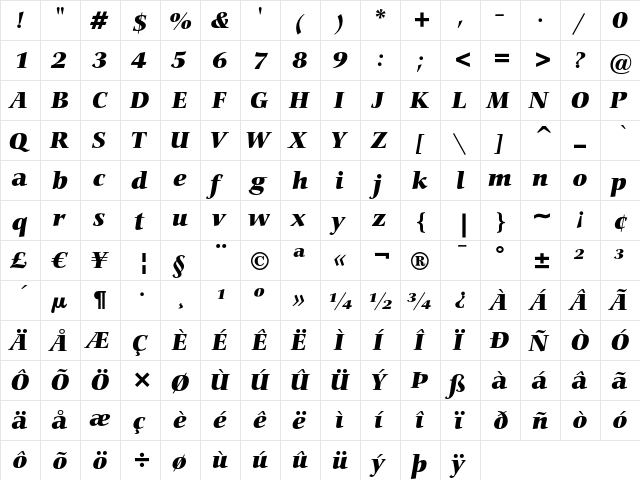
Bitstream Carmina Black Italic
Design Context for Bitstream Carmina Typeface
Bitstream Carmina is a composed and adaptable typeface that performs quietly and consistently across a wide range of design contexts. The dynamic lean of this cut emphasises speed and emphasis in any layout.
Pro Tip: Use Bitstream Carmina for emphasis, pull quotes, and subheadings where its slanted energy can add rhythm to the layout.